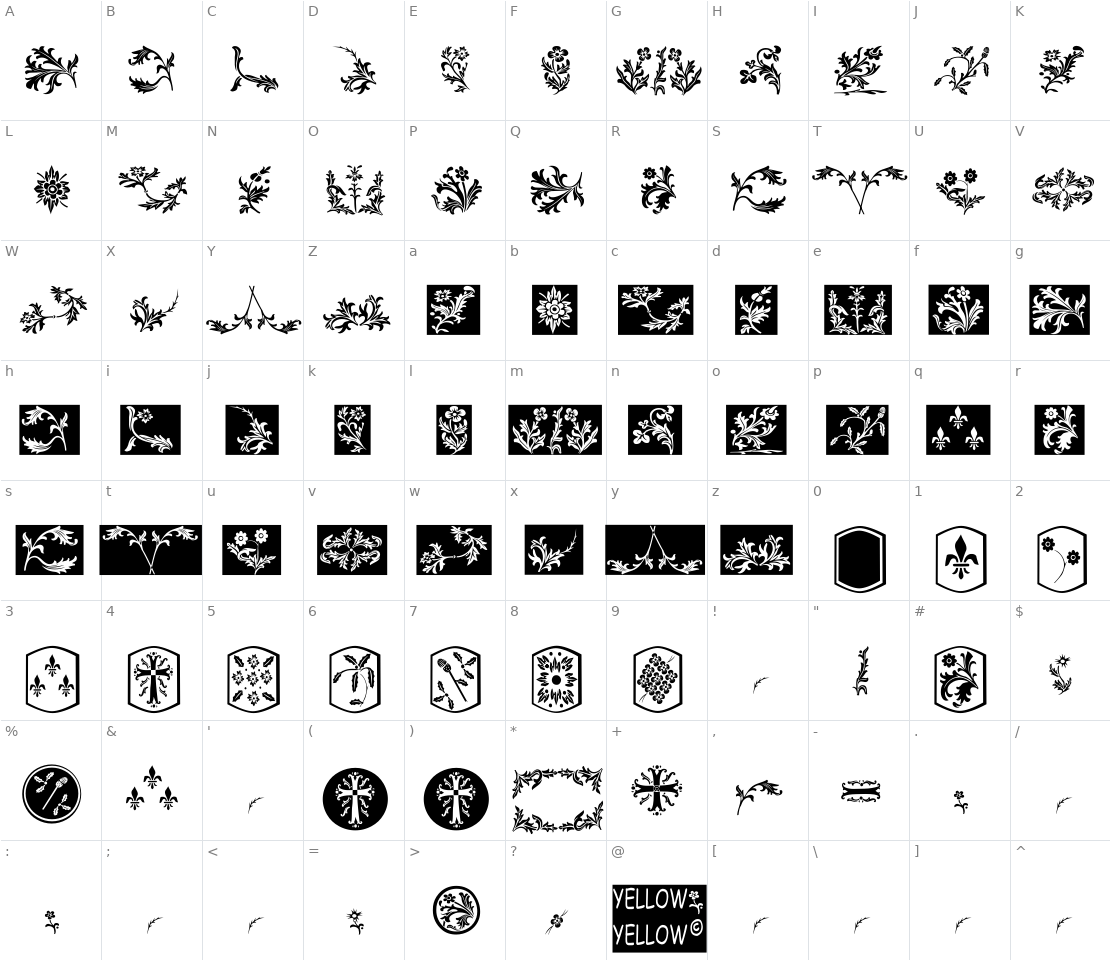
YY Old English Dingbats
by Yellowyellow
YY Old English Dingbats is an ornamental symbol font from Yellowyellow featuring floral and botanical motifs rooted in medieval decorative traditions. The set includes border elements and vintage flourishes that pair naturally with blackletter and Old English typefaces, giving designers the building blocks for illuminated-style page borders, certificates, and period-appropriate ornamentation. Purely decorative, so it works best alongside text faces rather than carrying any reading on its own.